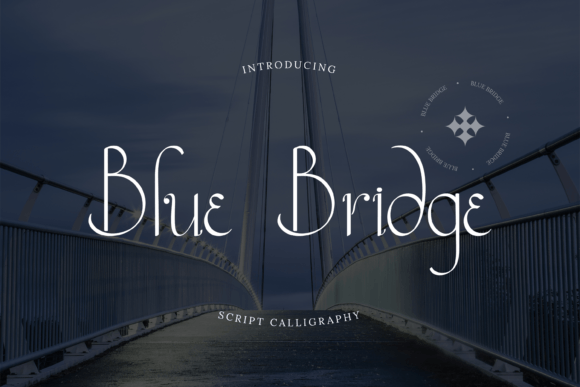
The Blue Bridge Font: A Modern Calligraphy Script to Elevate Your Designs
Have you ever been in the middle of a design project, and suddenly, you’re stuck on finding the perfect font? I recall a recent experience where I was working on a wedding invitation design, and my client specifically asked for a modern calligraphy script that would give their special day a personal touch. After scouring through numerous font libraries, I stumbled upon the Blue Bridge font, and it instantly became the perfect fit. In this article, we’ll dive into the world of Blue Bridge, exploring its features, uses, and what makes it an excellent addition to your design toolkit.
What is Blue Bridge Font?
Blue Bridge is a modern calligraphy script font designed to bring a touch of elegance and sophistication to your designs. Its fluid strokes and beautiful letterforms make it perfect for a wide range of projects, including branding, logos, wedding designs, social media posts, advertisements, product packaging, and more.
Honest Review: What I Love and What to Consider
The Good ✨
• 💫 Elegant and sophisticated design
• 🎨 Versatile and suitable for various design projects
• 🔍 Extensive OpenType features, including glyphs and stylistic alternates
The Not-So-Perfect 🤔
• ⚠️ Some users may find the font a bit too ornate for certain projects
• 🤔 Limited use of uppercase letters, which may require creative workarounds
The Story Behind Blue Bridge
Blue Bridge was designed with the intention of creating a modern calligraphy script that would bring a touch of elegance to various design projects. Inspired by the beauty of handwritten scripts, the designer aimed to craft a font that would be both sophisticated and versatile. With its fluid strokes and beautiful letterforms, Blue Bridge has become a popular choice among designers and crafters.
Q: What type of projects is Blue Bridge suitable for?
A: Blue Bridge is perfect for branding projects, logos, wedding designs, social media posts, advertisements, product packaging, and any projects that need a touch of elegance and sophistication.